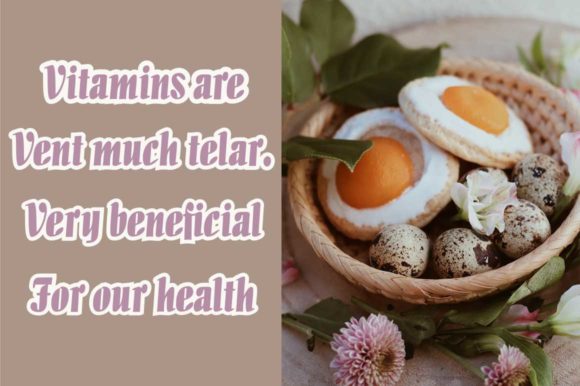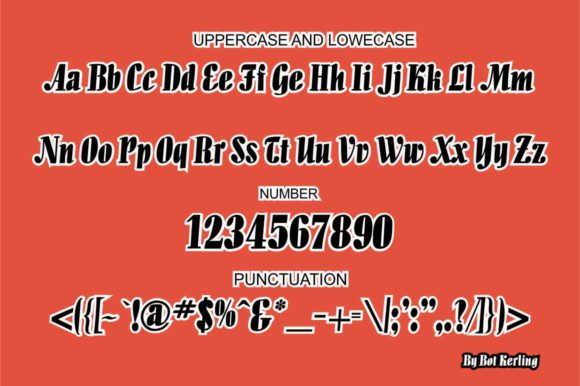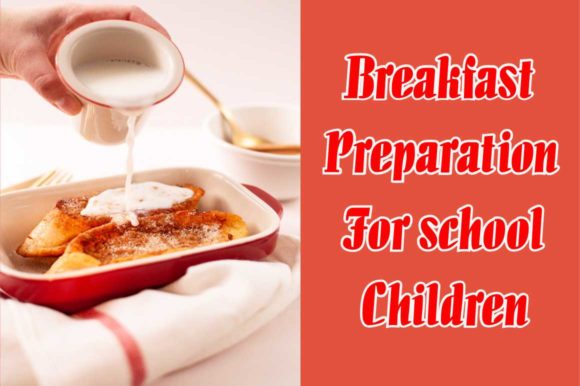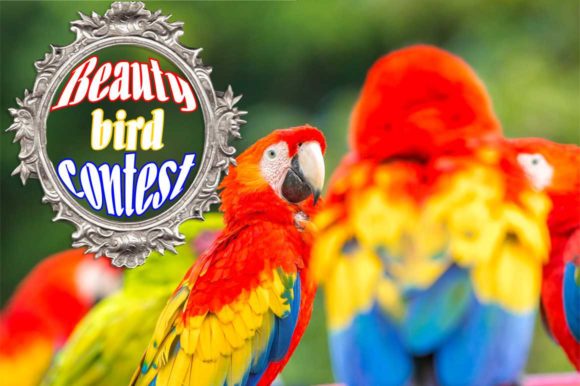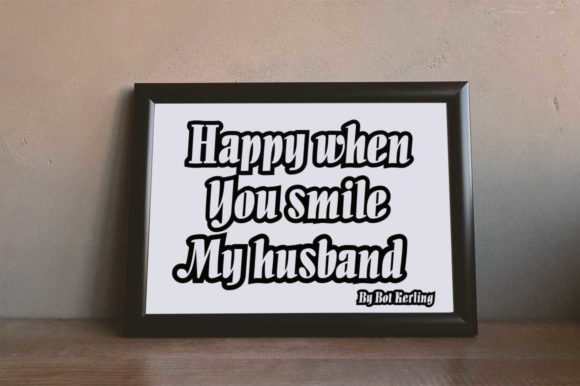
Bay Fresh Font
About Bay Fresh Font
Bay Fresh is a lovely and casual handwritten font with an incredibly friendly feel. Whether you’re looking for fonts for Instagram or calligraphy scripts for DIY projects, this font will turn any creative idea into a true piece of art!